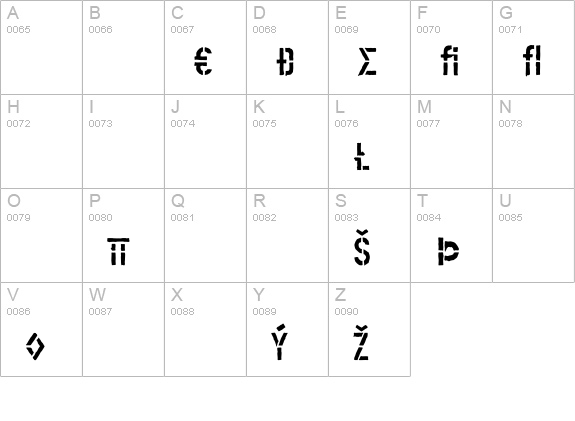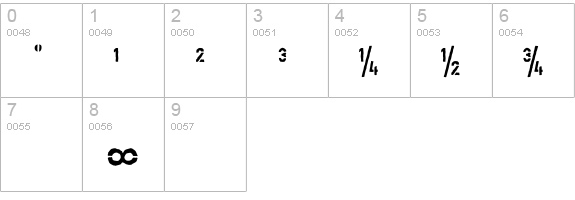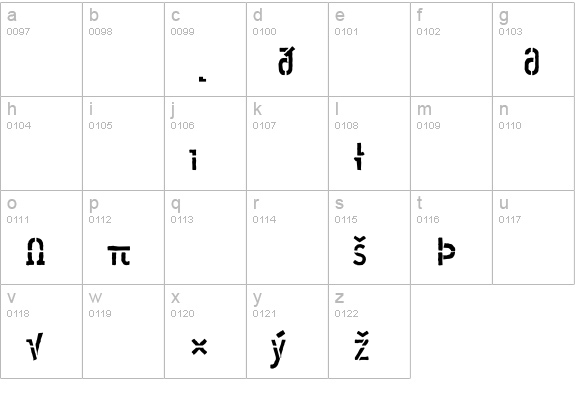
Offline-RoughExpert font is a dynamic and bold typeface that exudes creativity and personality. With its rough edges and unique style, this font is perfect for making a statement in your designs. The rugged appearance of Offline-RoughExpert font adds a touch of authenticity and rawness to any project, making it stand out from the crowd. Best of all, Offline-RoughExpert font is available for free download at FontsMarket.com. Whether you're working on a branding project, poster design, or any other creative endeavor, this font will add a touch of edginess and character to your work. Don't miss out on the opportunity to enhance your designs with the striking Offline-RoughExpert font, now easily accessible for free at FontsMarket.com.